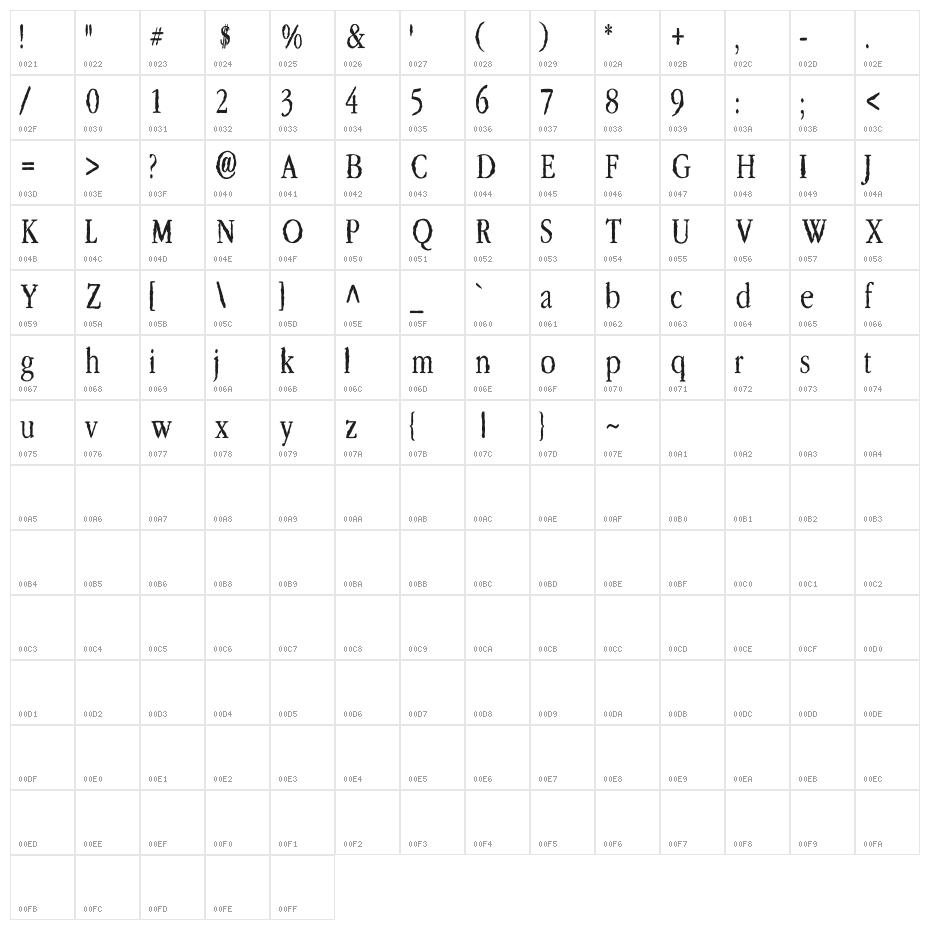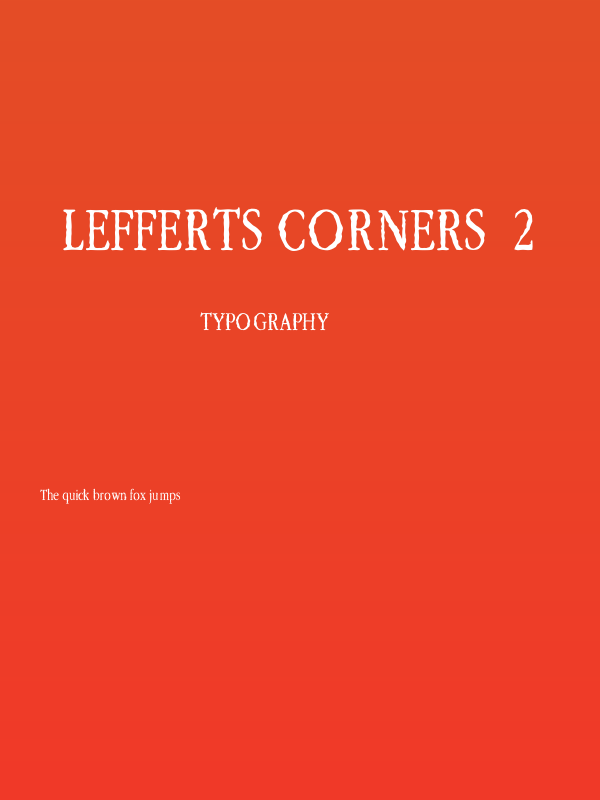
Lefferts Corners 2 Font
Lefferts Corners 2 Description
This font exhibits a distinctive, hand-drawn style with uneven strokes and a slightly rough texture, giving it a rustic and organic feel. The uppercase letters are bold and prominent, while the lowercase letters maintain a consistent style with a touch of whimsy. Numbers and special characters follow the same aesthetic, ensuring a cohesive look across all text elements. The font's unique character is highlighted by its irregularities, which add charm and personality, making it stand out in any design project.
| Overall Style | Rustic |
| Proposed Projects | Ideal for projects that require a personal, handcrafted feel, such as invitations, greeting cards, or artisanal product packaging. |